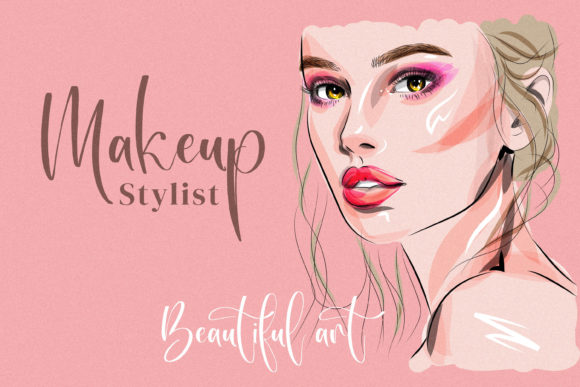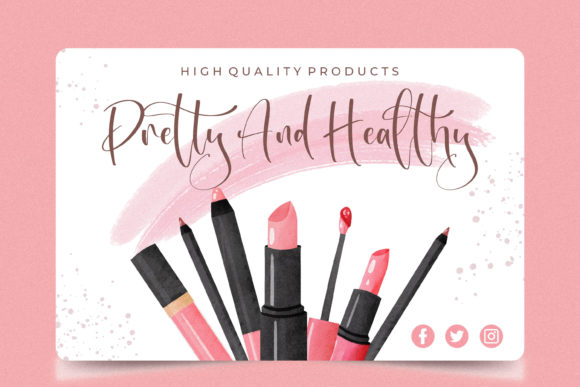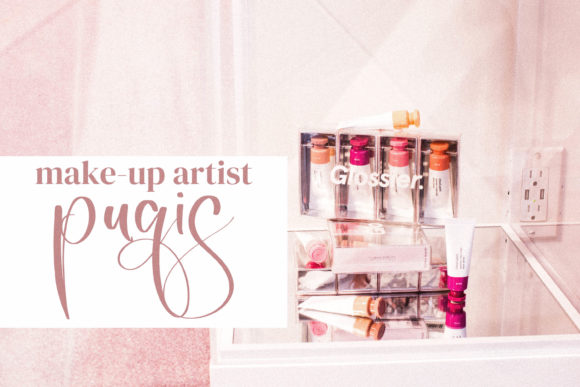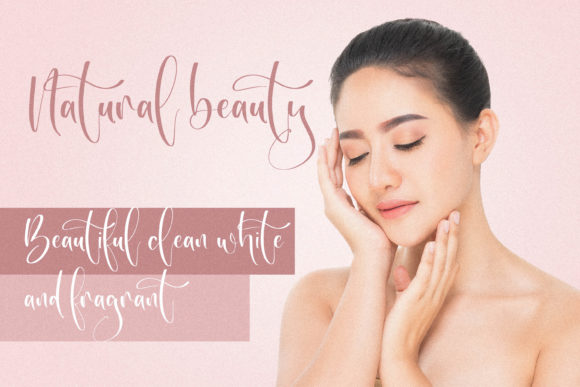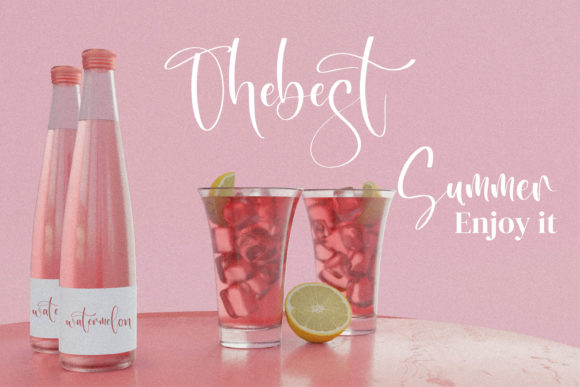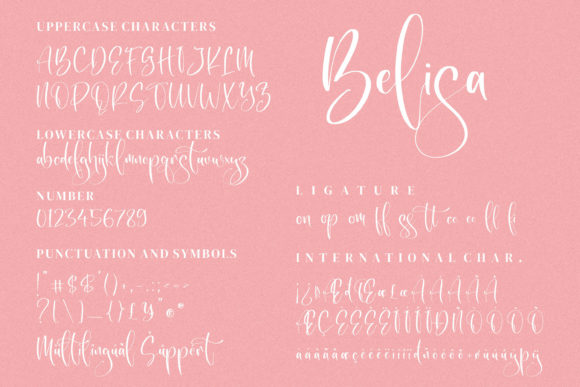
Discover the Elegance of Belisa Font: Elevate Your Designs with its Ravishing Style
In the world of typography, few fonts manage to capture the essence of elegance and sophistication as effortlessly as the Belisa Font. This stunning script font, characterized by its thin letters and graceful strokes, has become a favorite among designers and crafters looking to add a touch of luxury to their creations. Whether you’re planning a wedding, designing stationery, or simply want to elevate your social media posts, Belisa Font is an excellent choice.
What Makes Belisa Font So Special?
Belisa Font stands out from the crowd with its unique blend of delicacy and charm. Its thin, flowing letters exude a sense of refinement and poise, making it perfect for projects that demand a high level of sophistication. The font’s graceful script style is reminiscent of classic calligraphy, yet it retains a modern feel that will make your designs stand out.
Endless Possibilities with Belisa Font
The versatility of Belisa Font is one of its most compelling features. Its elegant appearance makes it suitable for a wide range of applications, including:
- Wedding Invitations: Create beautiful, bespoke wedding invitations that set the tone for your special day. Belisa Font’s elegant style will add a touch of romance and sophistication to your wedding stationery.
- Stationery Art: Elevate your stationery with Belisa Font’s graceful script. Perfect for letterheads, greeting cards, and thank-you notes, this font will make your correspondence stand out.
- Social Media Posts: Make your social media posts more engaging with Belisa Font. Whether you’re sharing quotes, announcements, or simply want to add some style to your feed, this font is sure to impress.
- Branding and Packaging: For businesses looking to convey a sense of luxury and elegance, Belisa Font can be a valuable asset. Use it for logos, product labels, or packaging to give your brand a sophisticated edge.
Why Designers and Crafters Love Belisa Font
Designers and crafters alike are drawn to Belisa Font for several reasons:
- Ease of Use: Belisa Font is incredibly easy to use, even for those who are new to design. Its clear, legible letters ensure that your message is communicated effectively.
- Customization: With Belisa Font, you have the flexibility to experiment with different sizes, colors, and styles to match your project’s unique needs.
- Timeless Appeal: Unlike trends that come and go, Belisa Font’s classic style ensures that your designs will remain timeless and relevant for years to come.
Tips for Getting the Most Out of Belisa Font
To truly make the most of Belisa Font, consider the following tips:
- Pair it with Contrasting Fonts: Combine Belisa Font with a bold, sans-serif font for a striking contrast that will make your text pop.
- Experiment with Colors: While Belisa Font looks stunning in black or dark colors, don’t be afraid to experiment with softer hues or metallic colors for a unique effect.
- Play with Ligatures: Take advantage of Belisa Font’s ligatures to add an extra layer of elegance and sophistication to your designs.
Belisa Font is more than just a script font – it’s a tool for designers and crafters to create stunning, sophisticated designs that capture the essence of elegance. With its thin letters, graceful strokes, and timeless appeal, Belisa Font is the perfect choice for anyone looking to elevate their projects. Whether you’re designing wedding invitations, stationery, or social media posts, this beautiful font is sure to make a lasting impression.